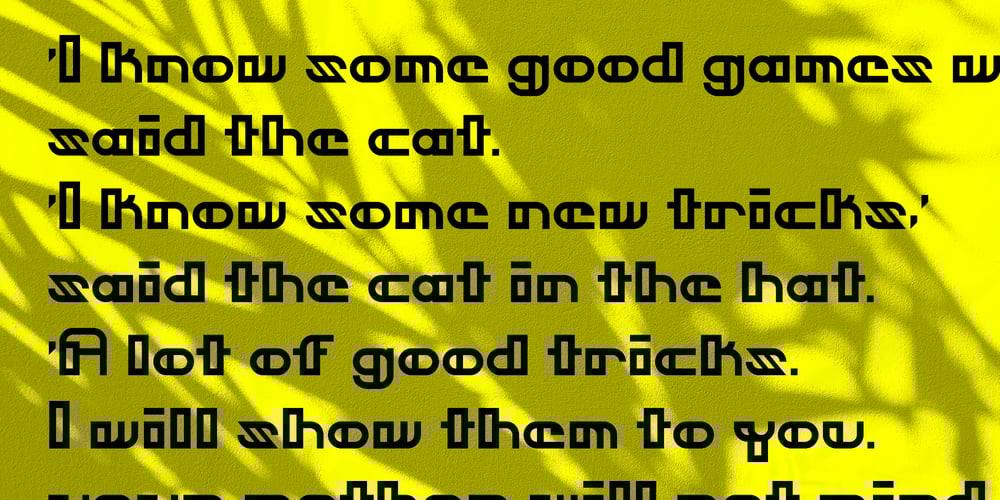
Square Cat Font Family was designed by David Kazaryan and published by Lalelum. Square Cat contains 2 styles and family package options. This is a blocky typeface with thick lines and no serifs. It’s a modern design with a hint of vintage lettering with a thicker vertical line on one side of each letter. Most letters are square shaped. The two styles are regualar and hollow, with the hollow style having the thicker areas hollowed out.